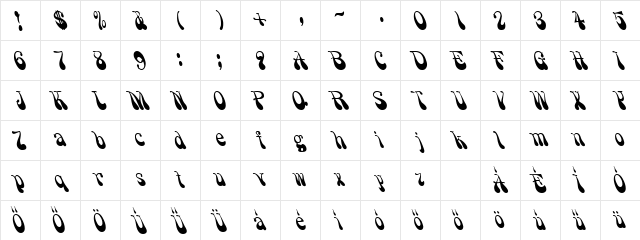
Psychedelic Smoke Hu Normal Free Font
Psychedelic Smoke Hu Normal
Design Context for Psychedelic Smoke Hu
Psychedelic Smoke Hu is a composed and adaptable typeface that performs quietly and consistently across a wide range of design contexts.
Pro Tip: Use Psychedelic Smoke Hu in both headline and body roles to test its range before committing to a single application.